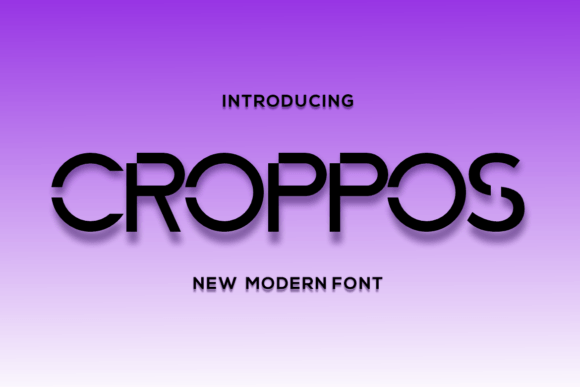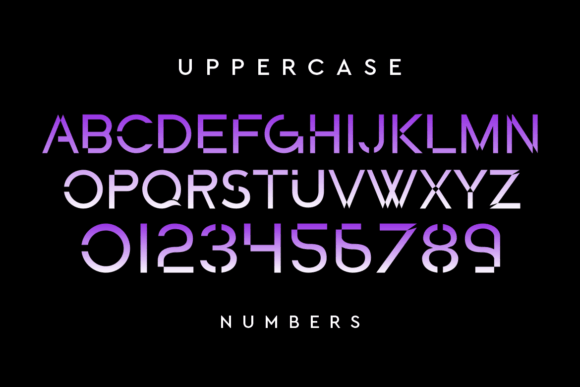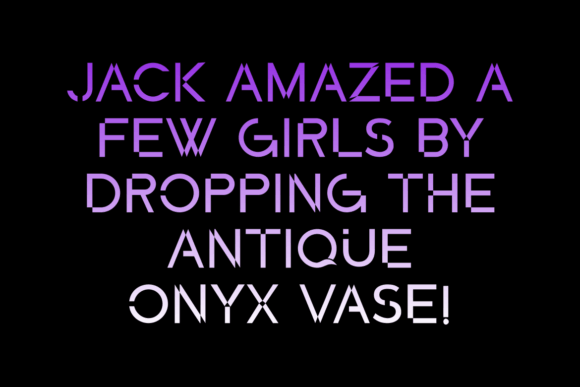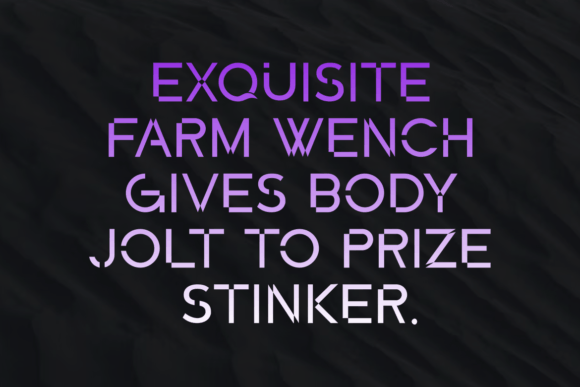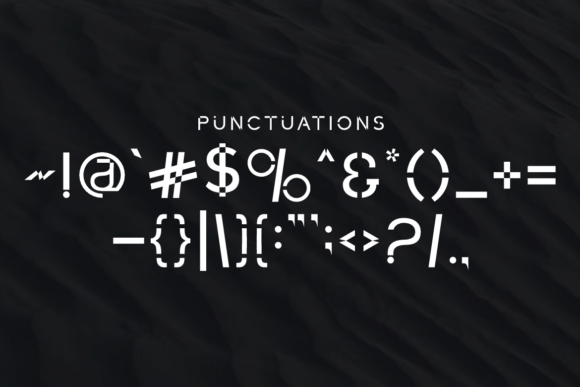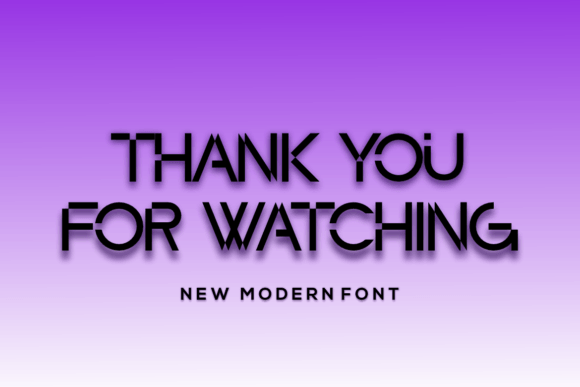
Croppos Font: Elevate Your Designs with a Touch of Modern Elegance
In the world of typography, fonts play a crucial role in conveying the tone and aesthetic of a design. For designers and crafters looking for a modern sans-serif font that exudes beauty, class, and minimalism, Croppos Font is an excellent choice. This versatile font is perfectly suited for a wide variety of projects, including signatures, stationery, logos, wedding designs, typography quotes, magazine or book covers, website headers, clothing, branding, packaging design, and more.
The Beauty of Croppos Font
Croppos Font boasts a clean and sleek design, characterized by its simple yet elegant lines. Its modern sans-serif style gives it a fresh and contemporary feel, making it ideal for designs that require a touch of sophistication. The font’s minimalistic approach ensures that it remains unobtrusive, allowing the content to take center stage while still adding a layer of visual appeal.
One of the standout features of Croppos Font is its versatility. It can be used across a multitude of design projects, from personal to commercial. Here are some of the areas where Croppos Font truly shines:
• Signatures and Stationery: Add a professional and modern touch to your letters and documents.
• Logos and Branding: Create memorable and impactful logos that reflect your brand’s personality.
• Wedding Designs: Elevate your wedding stationery, invites, and decor with a touch of elegance.
• Typography Quotes: Make your quotes stand out with a font that’s both beautiful and easy to read.
• Magazine or Book Covers: Capture the essence of your publication with a font that’s modern and inviting.
• Website Headers: Enhance your website’s aesthetic with headers that are both stylish and legible.
• Clothing and Packaging Design: Add a modern flair to your product designs and packaging.
Why Choose Croppos Font?
With so many fonts available, why should you choose Croppos Font for your next project? Here are a few compelling reasons:
• Legibility: Croppos Font is designed to be clear and legible, making it perfect for both digital and print designs.
• Uniqueness: While it maintains a modern sans-serif style, Croppos Font has unique characteristics that set it apart from more commonly used fonts.
• Flexibility: It works well in a variety of sizes and resolutions, from large headers to smaller body text.
Tips for Using Croppos Font Effectively
To get the most out of Croppos Font, consider the following tips:
• Mix and Match: Don’t be afraid to experiment with different weights and sizes of Croppos Font to create visual hierarchy in your designs.
• Pair with Other Fonts: While Croppos Font is beautiful on its own, it can also be paired with other fonts for added contrast and interest.
• Consider Your Audience: Ensure that the font size and style you choose are appropriate for your audience and the medium you’re designing for.
Croppos Font is a versatile and elegant modern sans-serif font that’s perfect for a wide range of design projects. Its beauty, legibility, and flexibility make it an excellent choice for designers and crafters looking to add a touch of class and minimalism to their work. Whether you’re designing a logo, creating a website, or crafting a piece of art, Croppos Font can help elevate your design to the next level.